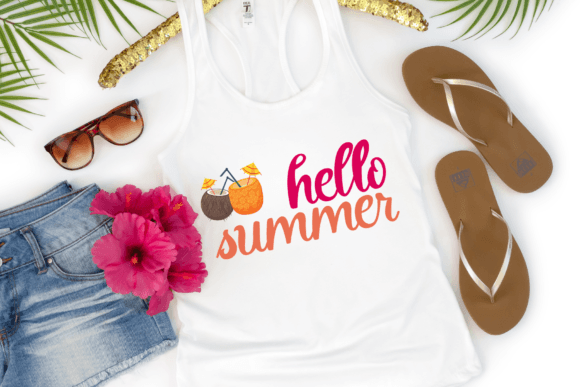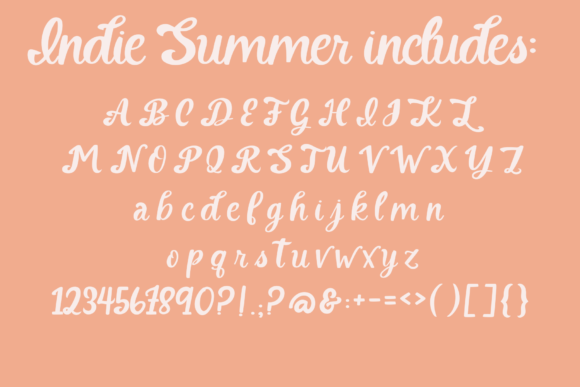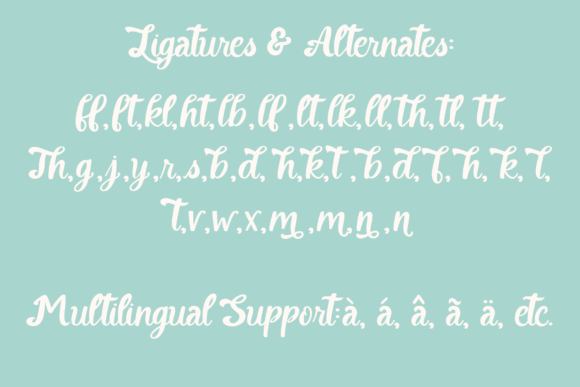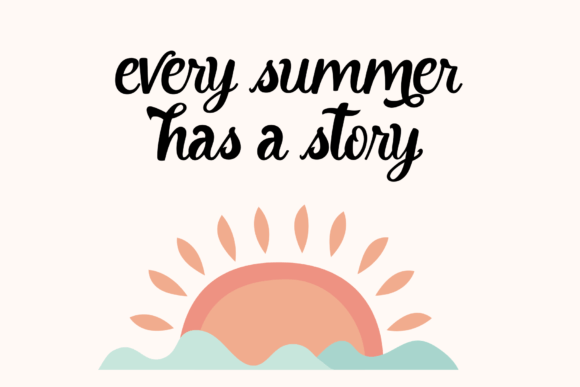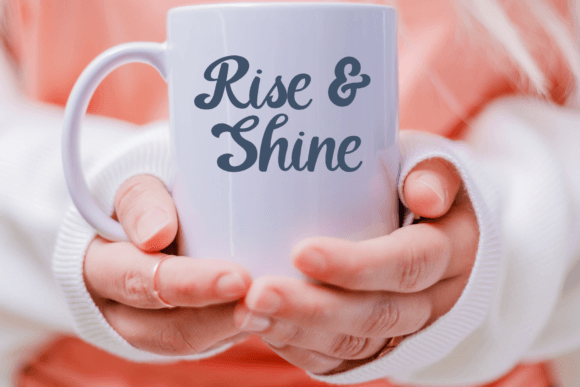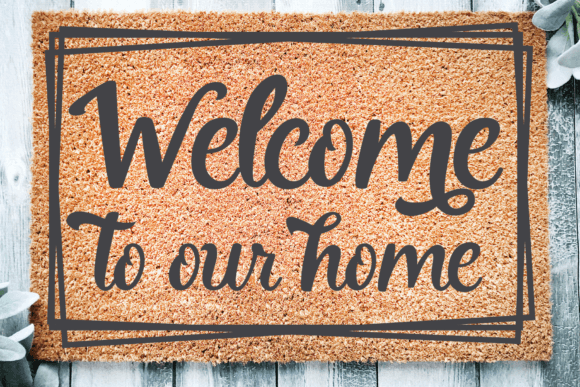
Introduction to Indie Summer Font
Who doesn’t love the feeling of creating something from scratch, especially when it comes to fun summer projects? The smell of fresh paint, the sound of the Cricut cutting machine, and the excitement of bringing your design to life – it’s a creative moment we all cherish. And, for designers, having the right font can make all the difference. That’s where the Indie Summer Font comes in – a fun retro font that’s perfect for adding a touch of whimsy to your summer projects.
With its swashes, ligatures, and alternates, the Indie Summer Font is a design resource that’s sure to impress. Whether you’re working on cards, scrapbooking, or creating SVG files, this font works seamlessly with popular design tools like Cricut, Goodnotes, and Procreate. And, with its high-quality design and transparent background, you can be sure that your projects will stand out. In this article, we’ll dive deeper into the world of Indie Summer Font and explore its endless possibilities.
Key Features of Indie Summer Font
- High-quality design resource ideal for creative projects and personal use.
- Unique, hand-drawn style with a mix of modern and vintage elements, perfect for adding a touch of personality to your designs.
- Transparent background, allowing for easy layering and customization in your creative projects.
- Available in 3 different font sizes (Regular, Bold, and Italic) to cater to various design needs.
- Designed with a high resolution (300 DPI) to ensure crisp and clear text rendering in both print and digital applications.
Honest Review: Indie Summer Font
As a designer, I’m always on the lookout for high-quality design resources that can elevate my creative projects. Recently, I stumbled upon the Indie Summer Font, and I’m excited to share my honest review with you.
The Indie Summer Font is a free download that offers a unique and quirky aesthetic, perfect for designers who want to add some personality to their designs. One of the standout features of this font is its ability to work well with transparent backgrounds, making it ideal for designs that require a touch of whimsy.
- ✨ Unique and quirky aesthetic that adds personality to designs
- ✨ Works well with transparent backgrounds
- ⚠️ Limited number of styles and weights available
- ⚠️ May not be suitable for formal or corporate designs
Overall, I’m impressed with the Indie Summer Font. It’s a great addition to any designer’s toolkit, and I appreciate the fact that it’s a free download. While it may have some limitations, it’s definitely worth checking out for designers who want to add some creativity to their projects.
How to Use Indie Summer Font
The Indie Summer Font is a versatile design resource perfect for creative projects that require a unique touch. To get the most out of this high-quality font, follow these steps:
The Indie Summer Font is perfect for:
- Summer-themed designs, such as invitations, posters, and social media graphics.
- Wedding designs, such as invitations, programs, and place cards.
- Blog posts and articles that require a unique and creative touch.
1. Use the Indie Summer Font in conjunction with a transparent background to create a unique and eye-catching design.
2. Experiment with different font sizes and styles to add visual interest to your design.
3. Pair the Indie Summer Font with other design elements, such as images and graphics, to create a cohesive and engaging design.
Alternatives to Indie Summer Font
Monserrrat is a modern sans-serif font that’s perfect for creative projects requiring high-quality typography. Its transparent background makes it suitable for use on any design resource, including logos and graphics. Download it for free and use it in your next design project. Montserrat is more versatile than Indie Summer Font, as it can be used in a variety of contexts, from corporate branding to creative graphics.